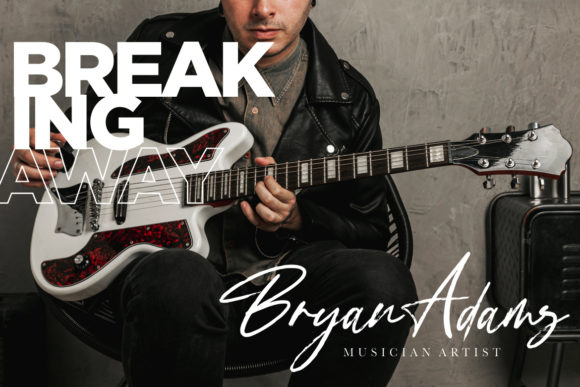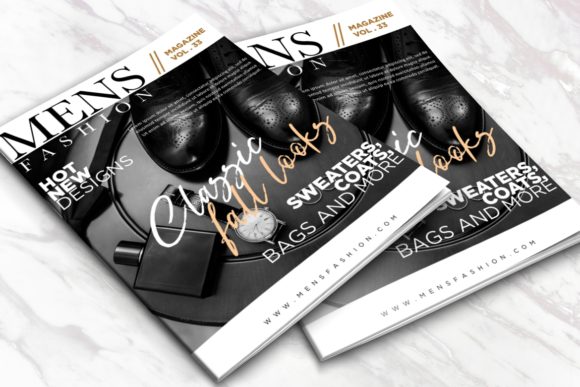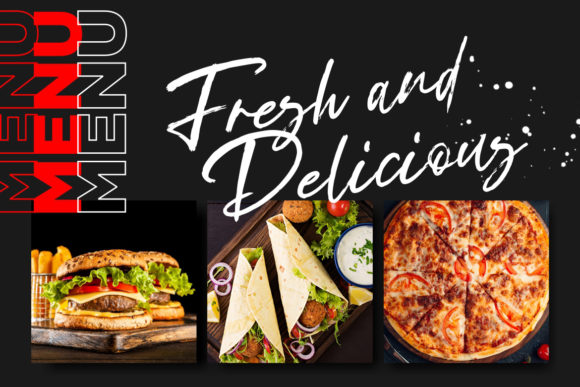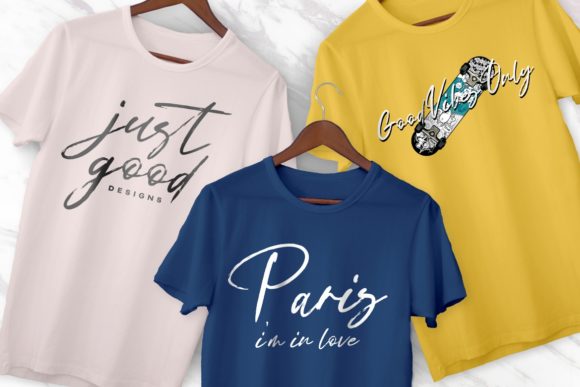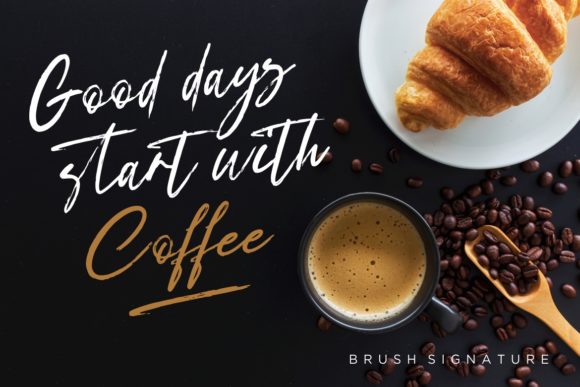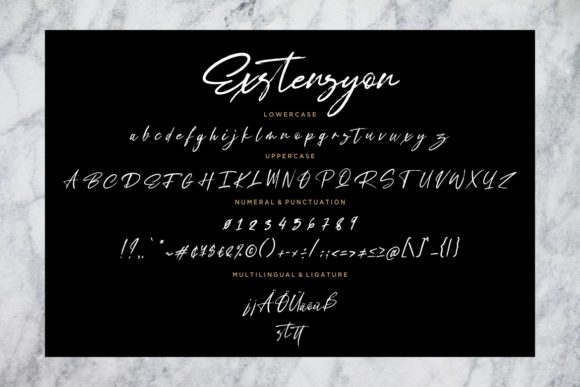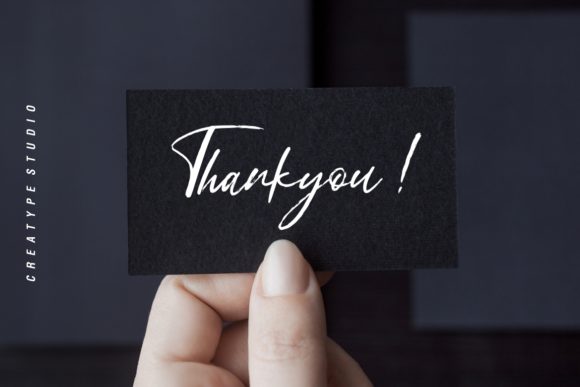
Exstensyon Font
About Exstensyon Font
Exstensyon is an incredibly versatile handwritten brush font. With its neat and beautiful arrangement of letters, this typeface will look outstanding in both formal and non-formal designs.